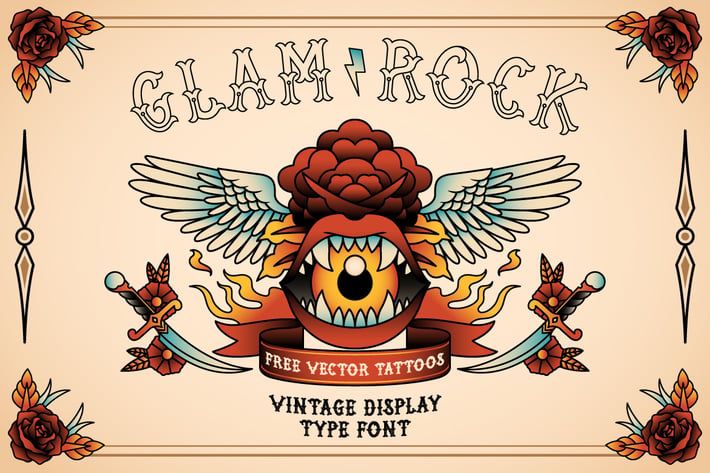
Glam Rock Vintage Font
Glam Rock Vintage Font Display made in 2 types of font, regular and dark style. This set also includes old school tattoo vector pack, very fit with the Glam Rock font or any other retro design. Enjoy